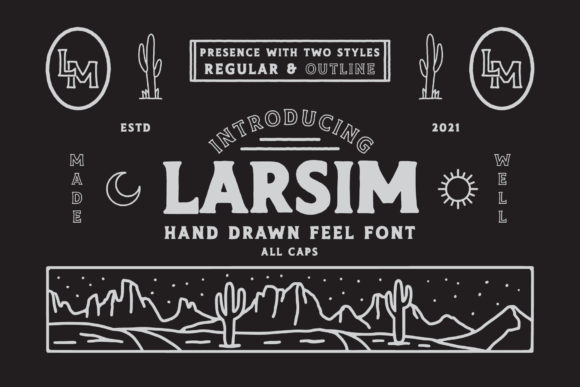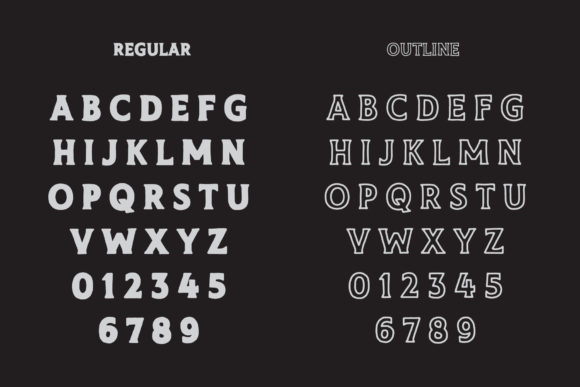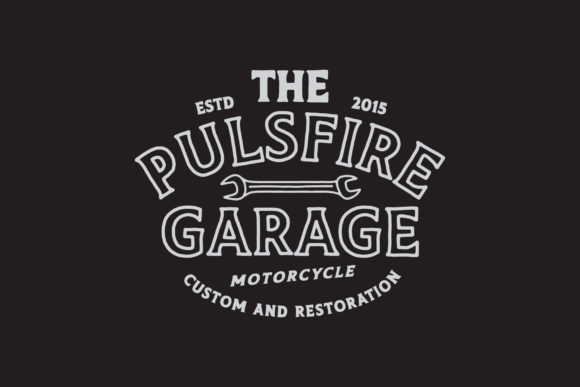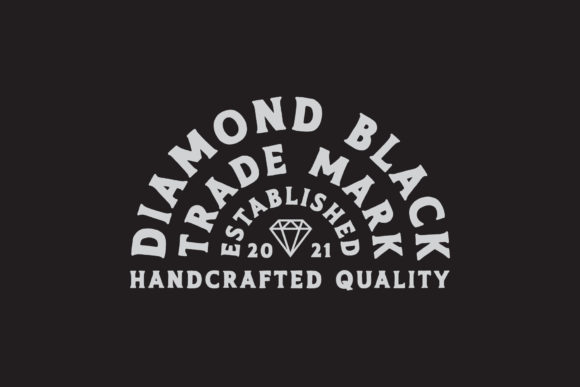
Larsim Font
Larsim is a casual sans serif font. With its neat and beautiful arrangement of letters, this typeface will look outstanding in both formal and non-formal designs.